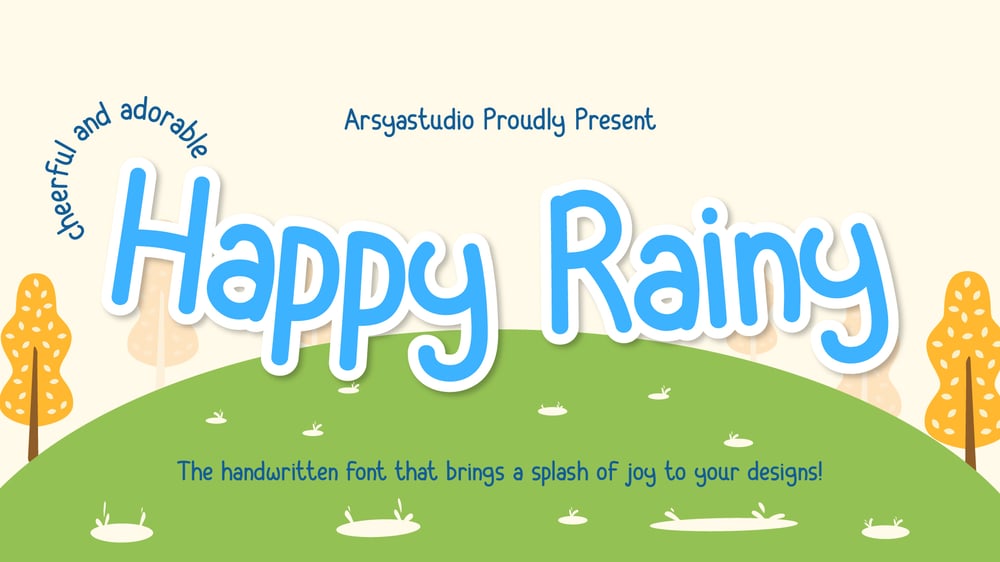
Happy Rainy Font Family was designed by published by Arsya Studio. Happy Rainy contains 1 styles and family package options. Meet Happy Rainy – the handwritten font that brings a splash of joy to your designs! With its playful strokes and cheerful vibe, this font is perfect for adding a fun, friendly touch to any project. Whether you’re crafting a logo, designing packaging, or making eye-catching social media graphics, Happy Rainy is here to brighten up your creativity!Happy Rainy by Arsyastudio is a playful handwritten font that brings joy to every design. With its natural strokes and charming letterforms, this font is perfect for creative projects like posters, packaging, branding, and invitations. Each character flows like refreshing raindrops, creating a warm and friendly vibe in every word.